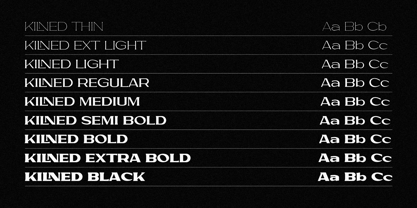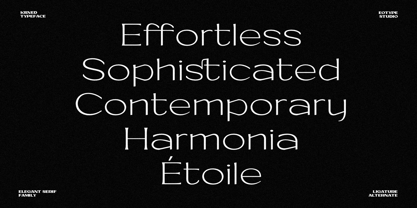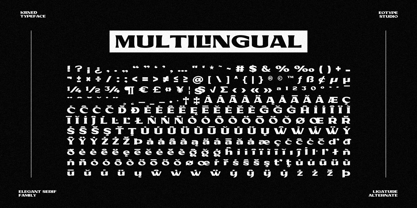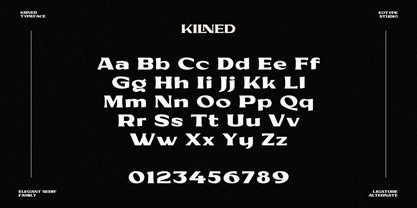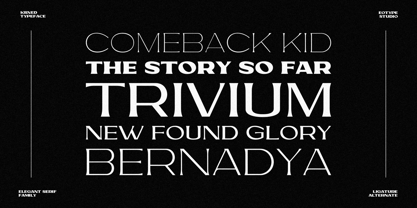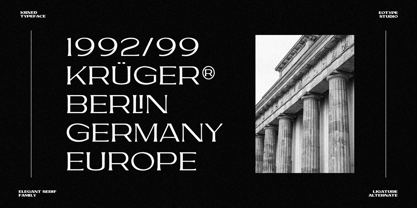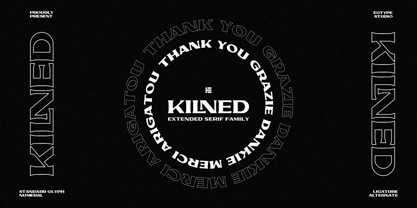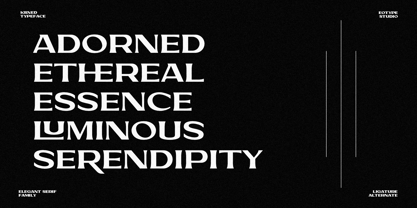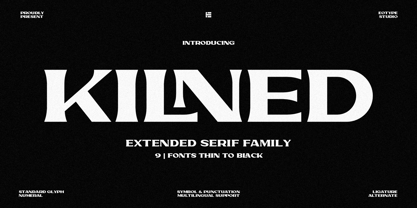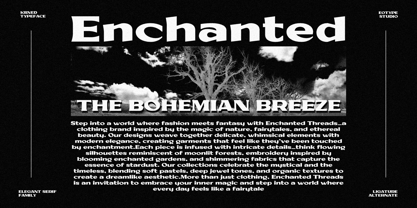
Kilned
von Eotype
Die Schriftfamilie Kilned wurde von Fajar Ramadan entworfen und von Eotype veröffentlicht. Kilned enthält 9 Stile und Familienpaketoptionen.
Kilned Serif font family a meticulously crafted collection of nine wide styles designed to infuse your creations with sophistication and charm. Perfect for brands, publications, and creatives seeking a timeless yet versatile typographic solution. Kilned Serif offers a harmonious blend of modern and classic aesthetics. The family includes 9 styles, each tailored to meet diverse design needs.